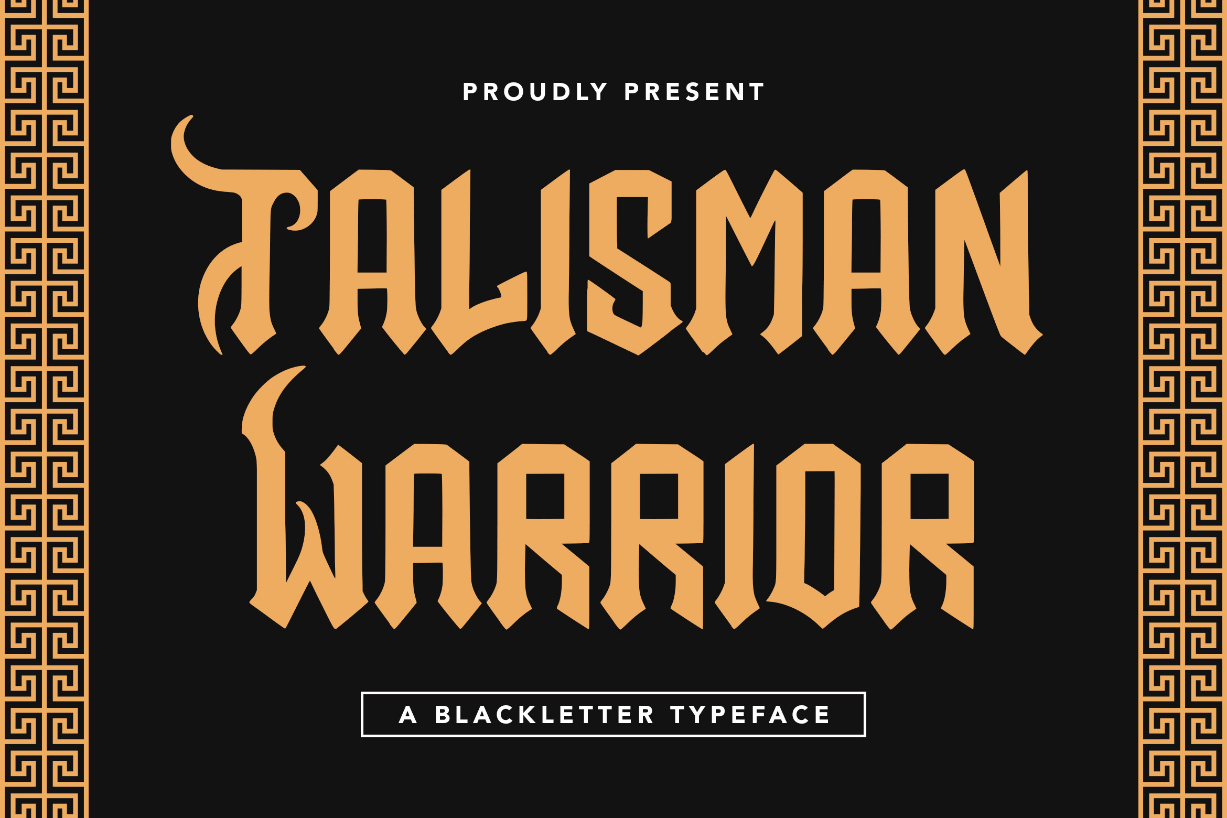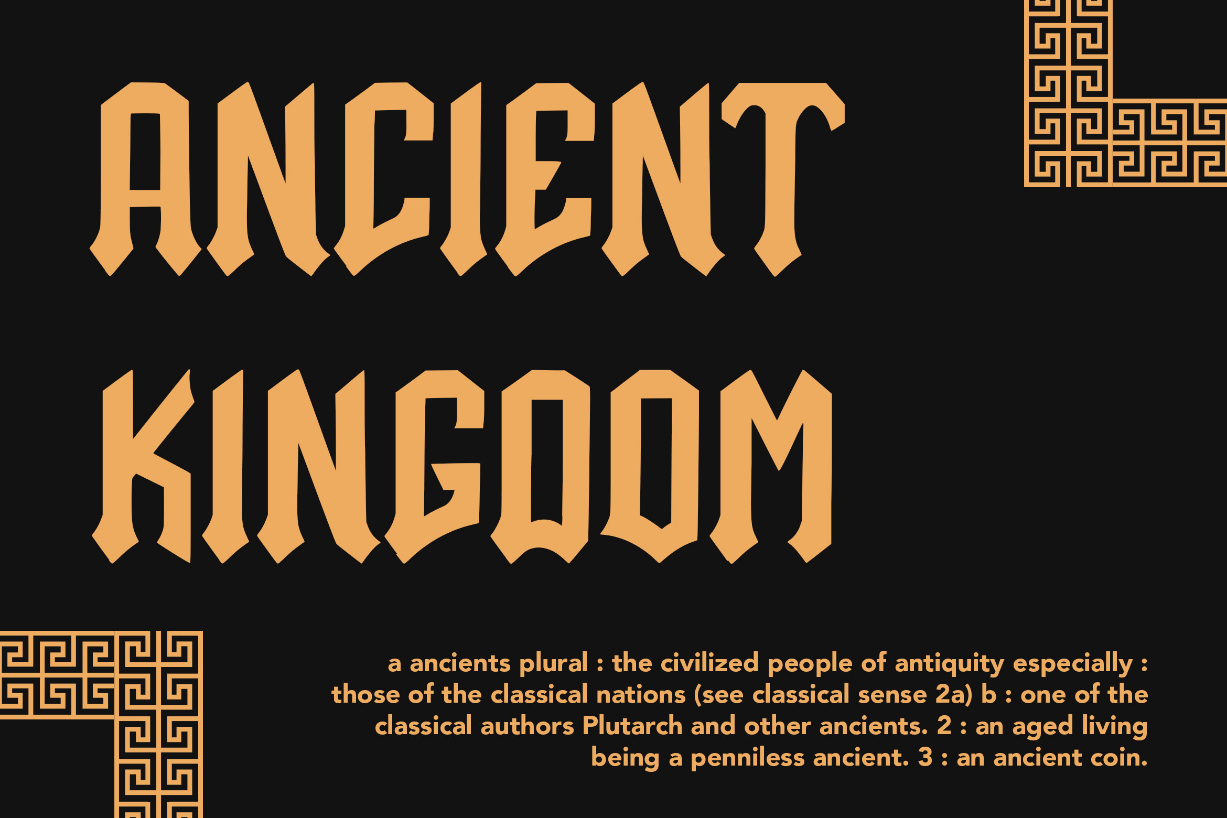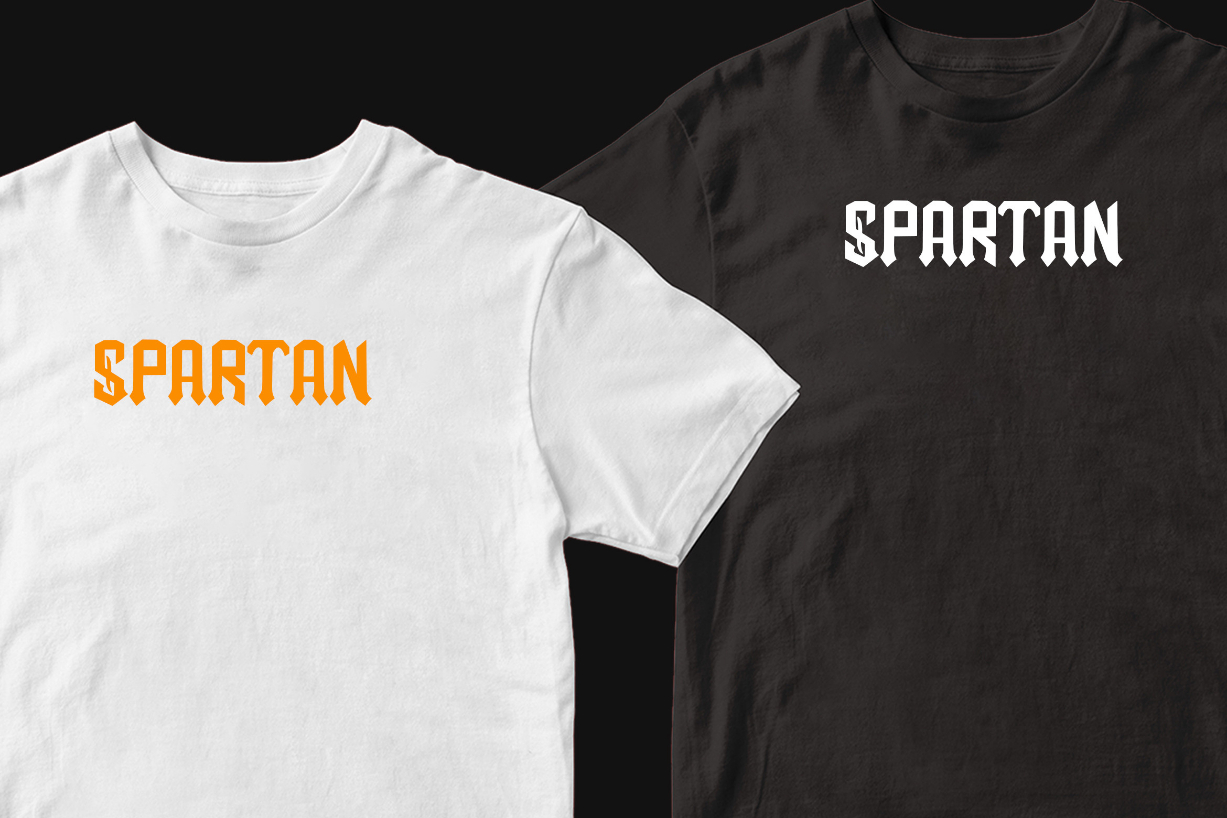
About Talisman Warrior Font
Talisman Warrior – Blackletter Typeface is a display font that is inspired by gothic and horror styles because its shape is very unique and is perfect for any project that you will use with this theme.
Talisman Warrior with OpenType features such as stylistic alternates, stylistic sets & ligatures good for logotype, poster, badge, book cover, tshirt design, packaging, and any more.